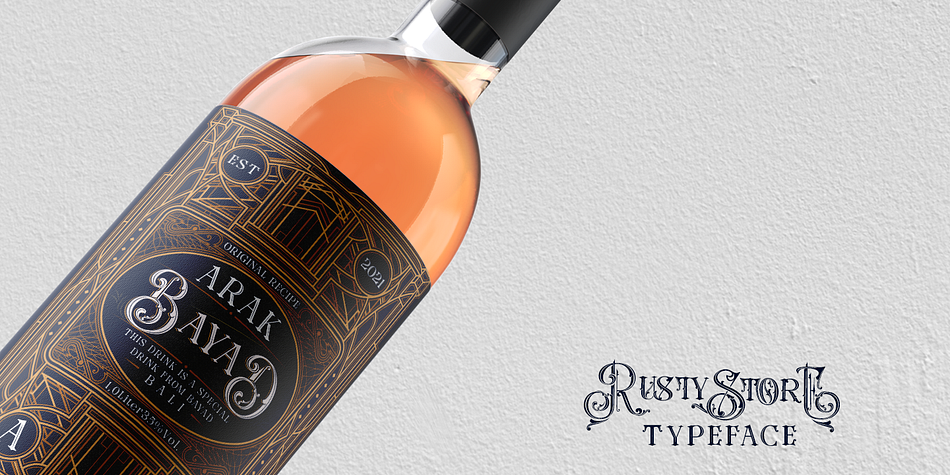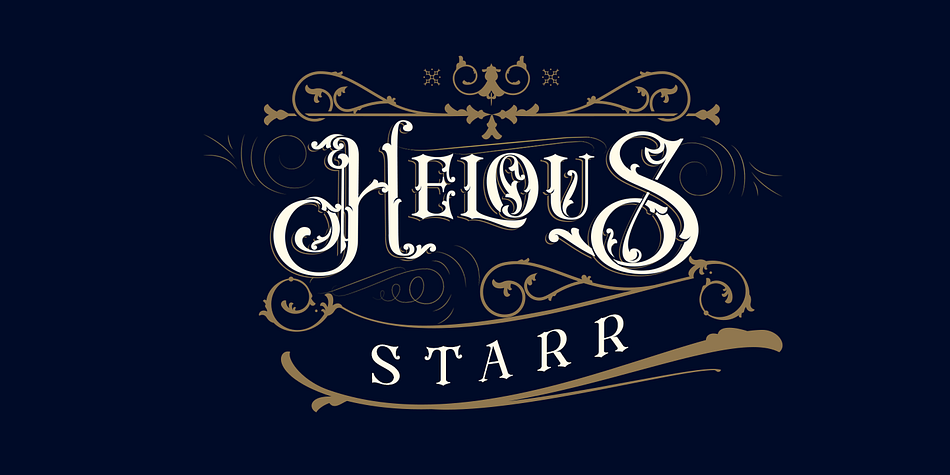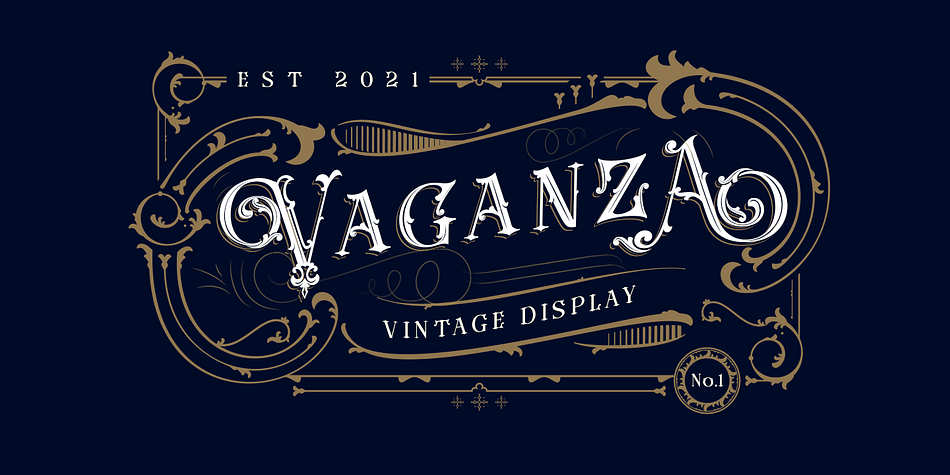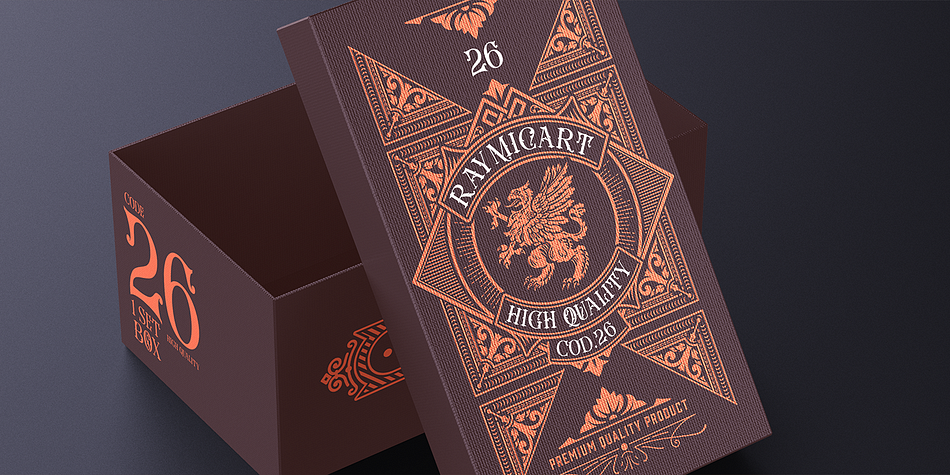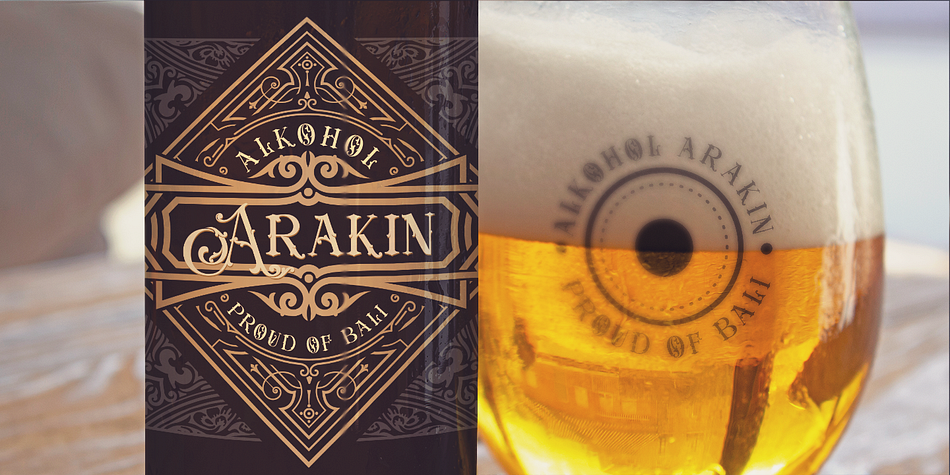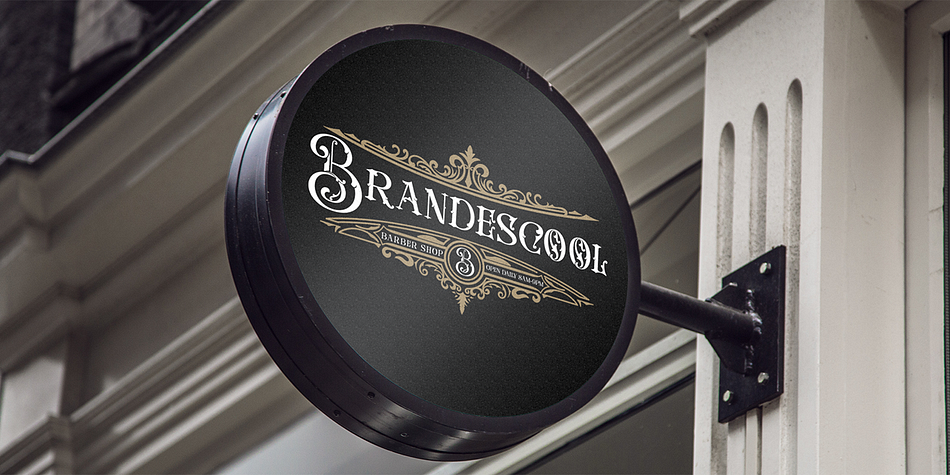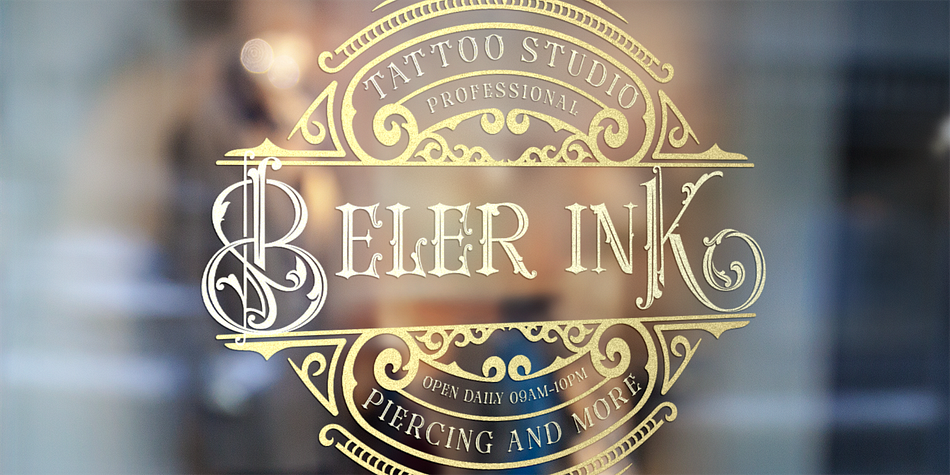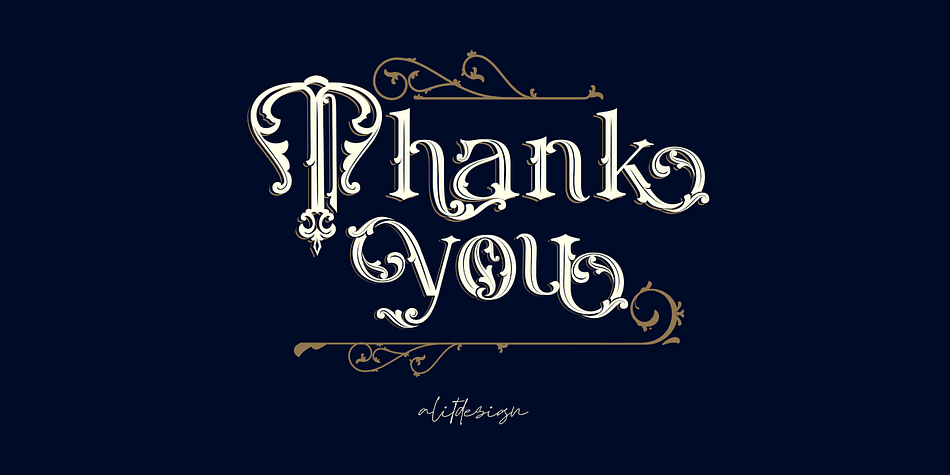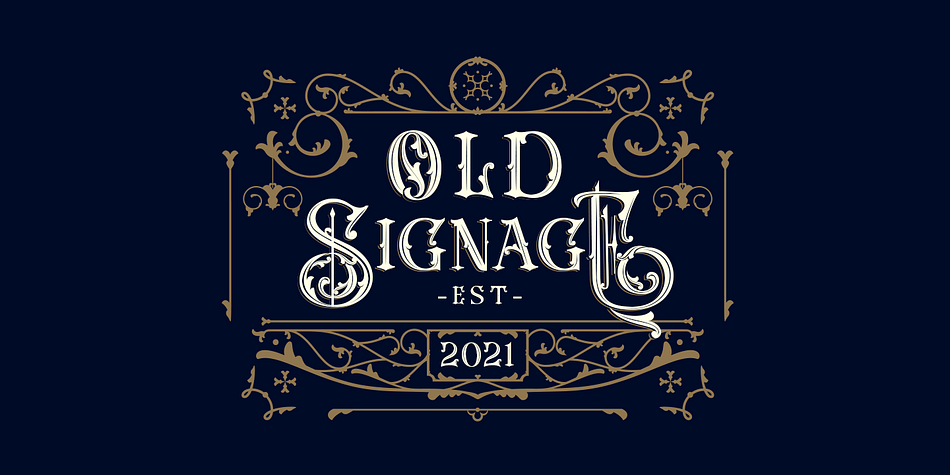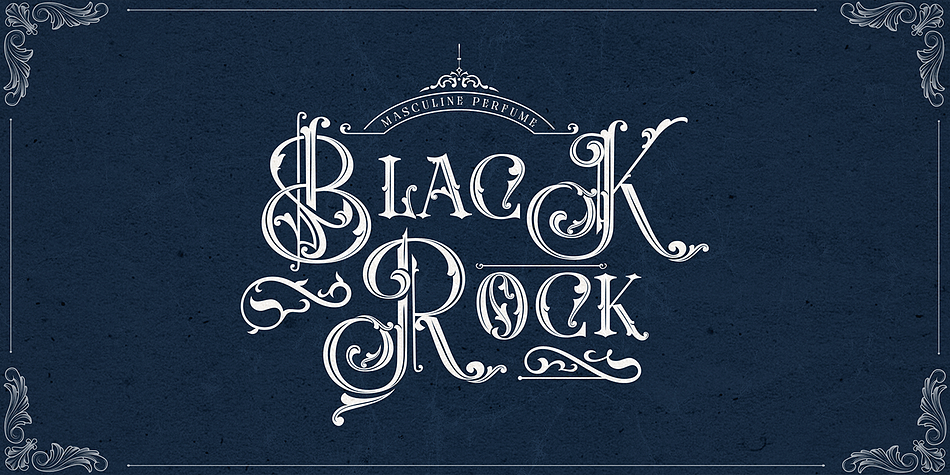
Rusty Store
Designed by Alit Suarnegara, Rusty Store is a display and display serif font family. This typeface has two styles and was published by Alit Design.
Introducing Rusty Store Typeface
Rusty Store Typeface is inspired by the classic era typeface in the 1800 era but is combined with today’s era and produces a very elegant and charming typeface. The details of the “Rusty Store” shape are very subtle and flow creating unique and gorgeous curves. Elegant serif like “Rusty Store” are very easy to apply to any design, especially those with an elegant and smooth concept, apart from that this font is very easy to use in both design and non-design programs because all alternates and glyphs are supported by Unicode (PUA).
Styles Display, Display Serif